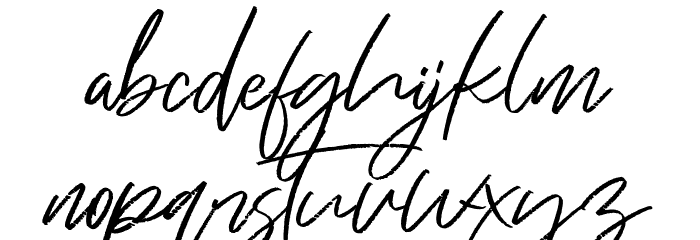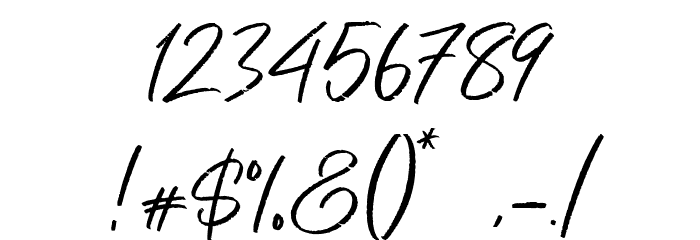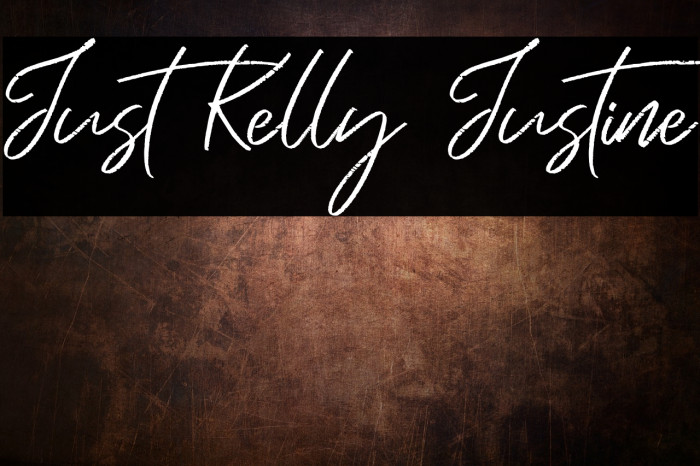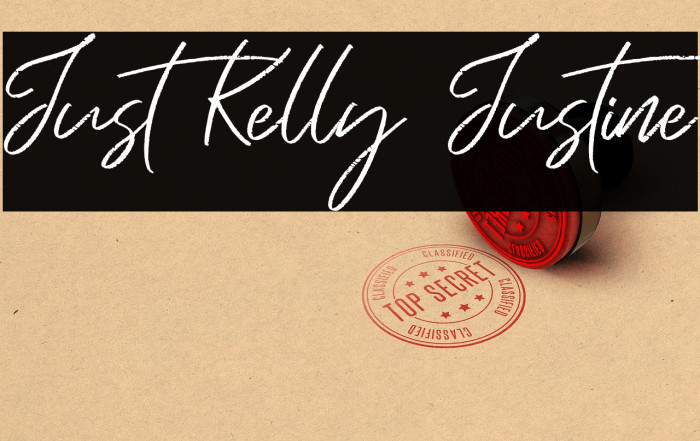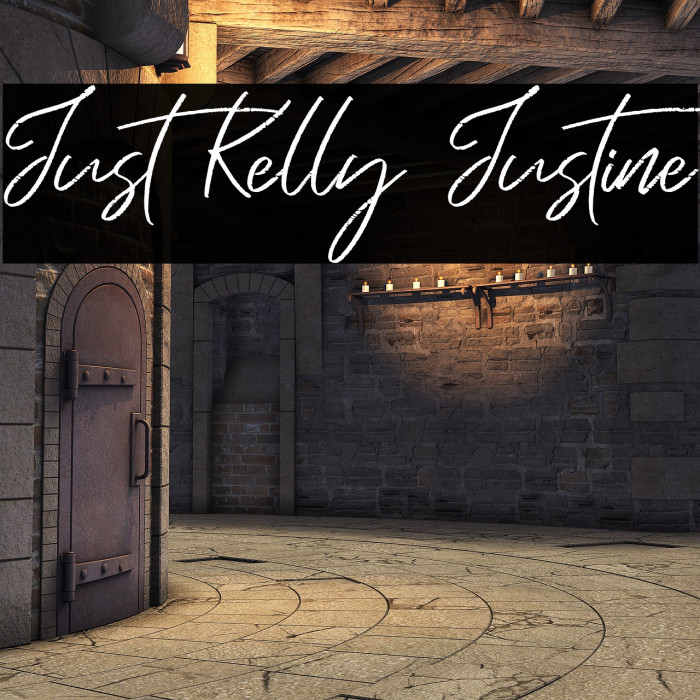
Just Kelly Justine Font
This font exudes a lively and dynamic handwritten style, characterized by its fluid and cursive strokes. The letters are connected in a natural flow, giving it an authentic and personal touch. The uppercase letters maintain a consistent height, while the lowercase letters vary in size, adding to the casual and spontaneous feel. The numbers and special characters follow the same handwritten aesthetic, ensuring a cohesive look across all elements. The overall appearance is both elegant and approachable, making it suitable for projects that require a personal or creative flair.
A lively, cursive handwritten font with fluid strokes and a personal touch.
- Proposed Projects: Ideal for wedding invitations, personal branding, greeting cards, and creative projects that require a personal touch.
- Category: Handwritten
- Use Case: Logos, Invitations, Personal branding